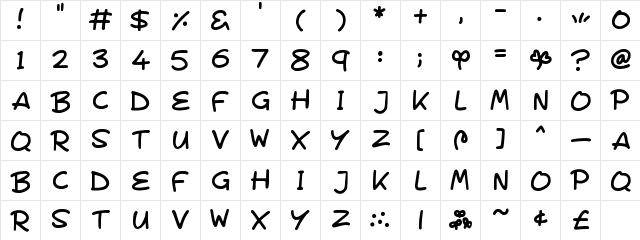
Veggie Seedlings Regular
Design Context for Veggie Seedlings Typeface
Veggie Seedlings is a composed and adaptable typeface that performs quietly and consistently across a wide range of design contexts.
Pro Tip: Use Veggie Seedlings in both headline and body roles to test its range before committing to a single application.